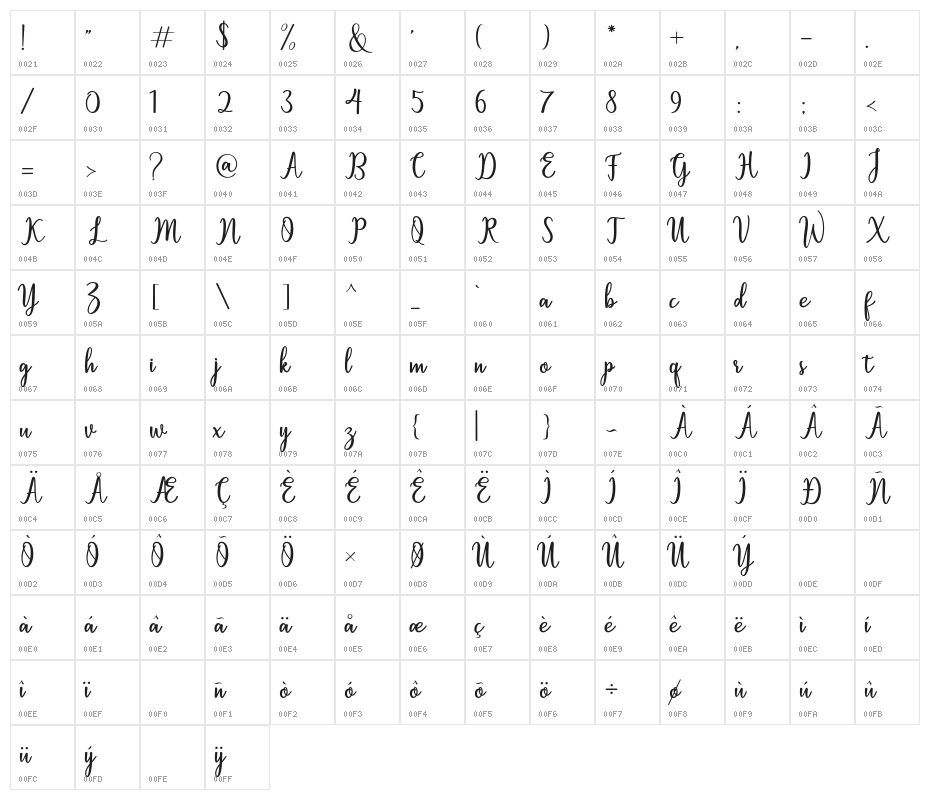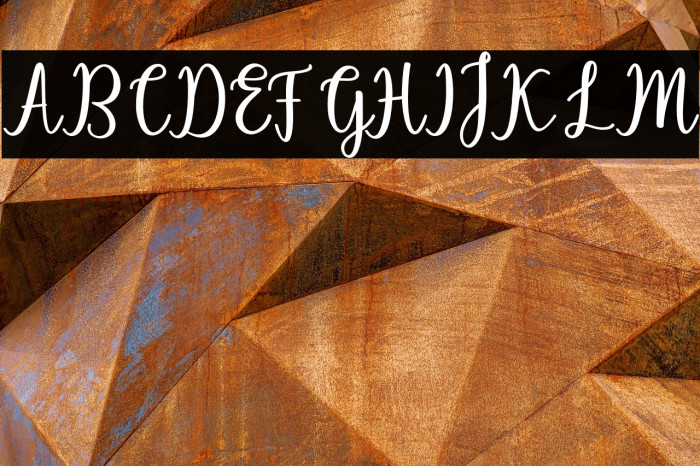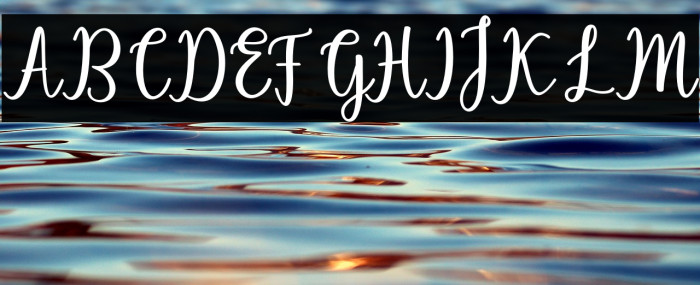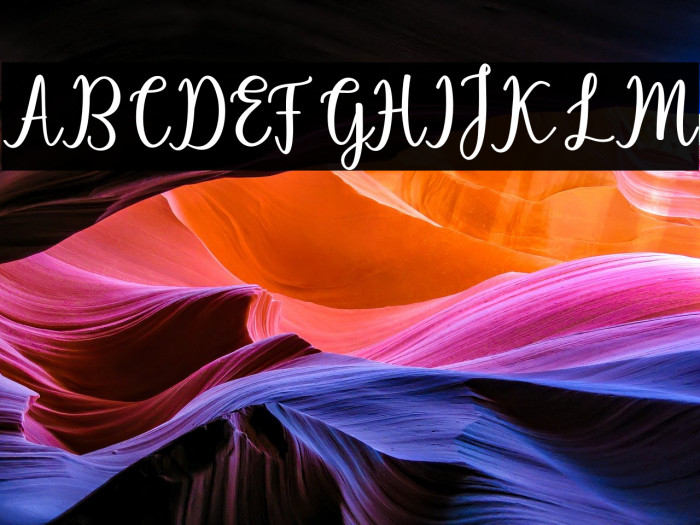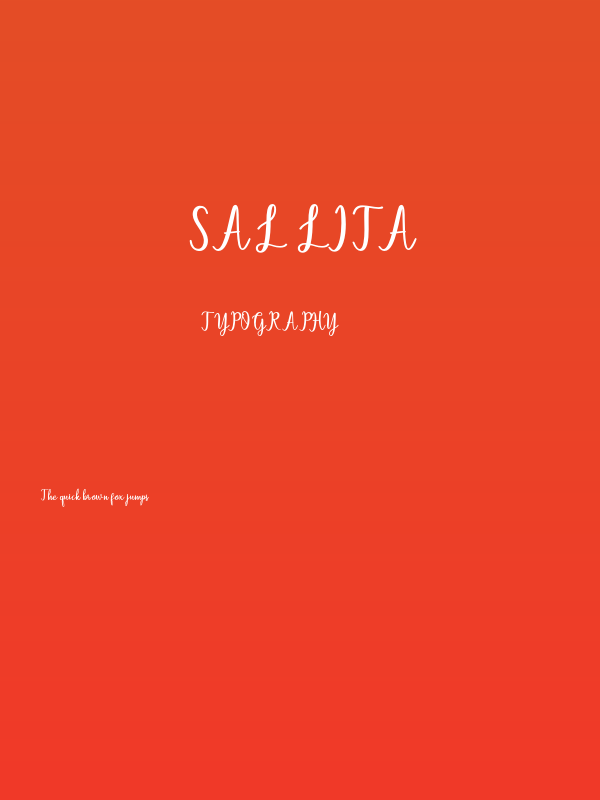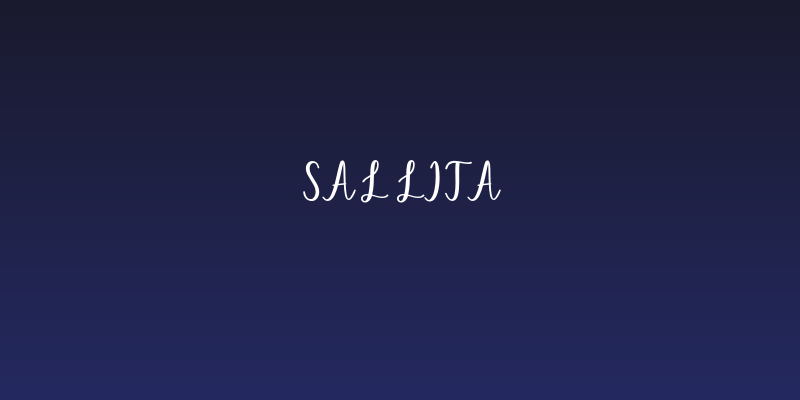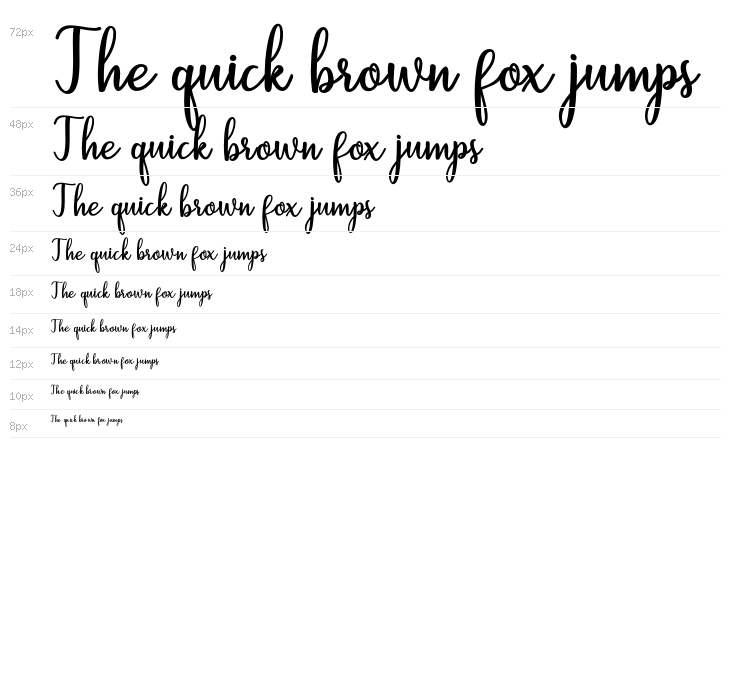
Sallita Font
Sallita Description
This font features a flowing, cursive style with elegant loops and swashes, giving it a handwritten appearance. The uppercase letters are tall and graceful, with a consistent slant that adds to the font's fluidity. The lowercase letters maintain a cohesive look, with smooth connections between characters. The numerals are clear and legible, matching the overall style with slight embellishments. Special characters are thoughtfully designed, integrating seamlessly with the rest of the font. This font exudes a sense of sophistication and charm, making it ideal for projects that require a personal touch.
Use CaseLogos, Invitations, Greeting Cards
Proposed ProjectsIdeal for wedding invitations, greeting cards, branding, and any project that benefits from a personal, elegant touch.